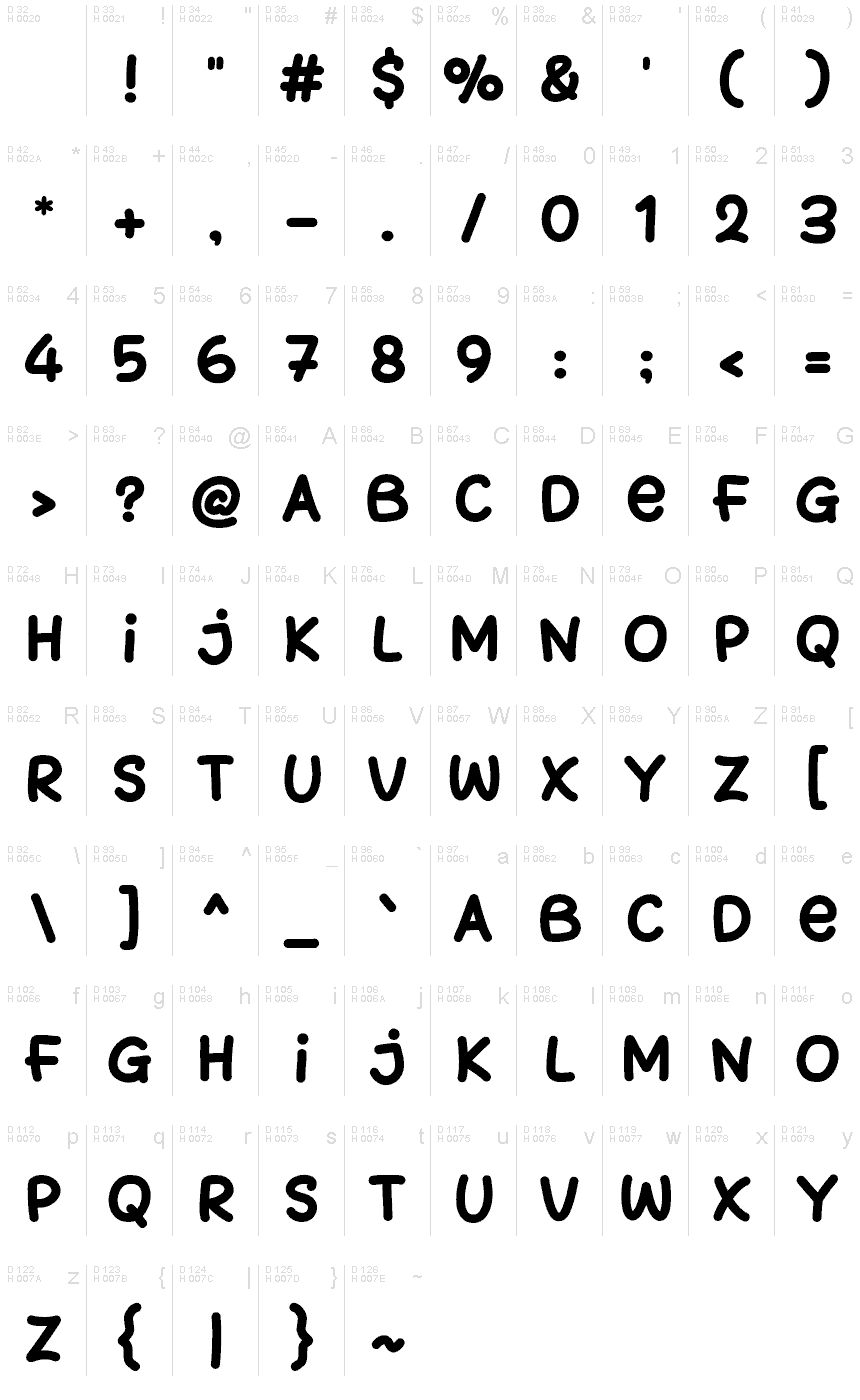
January Snack
January Snack font by Khurasan is a cartoon display typeface with a friendly and approachable tone. The letters are rounded, giving text a softened, casual feel that is perfect for projects intended to be fun and modern. While funny on its own, the type also has a visually appealing style that makes it suitable for versatile and professional applications.
This free display font can be used to make joyful book covers or flyers related to businesses such as restaurants. Other uses include food labels on packaging, logos for child-related brands, poster titles, website headers, social media posts, greeting cards or invitations.